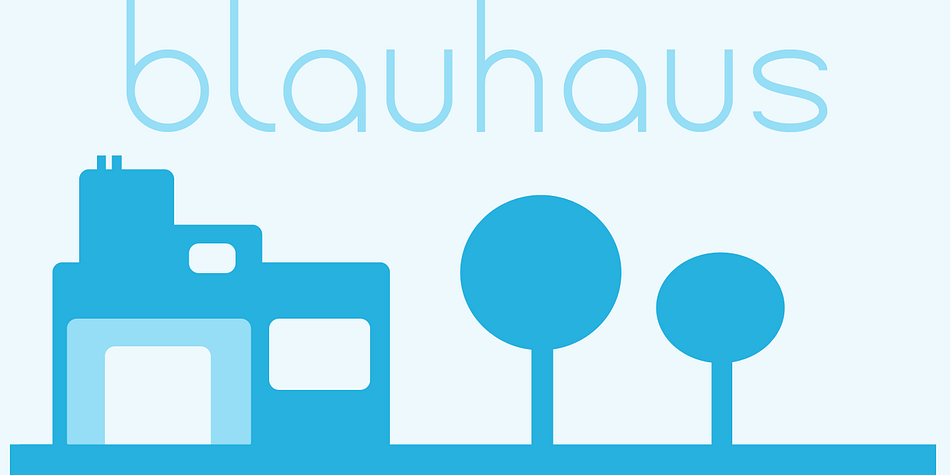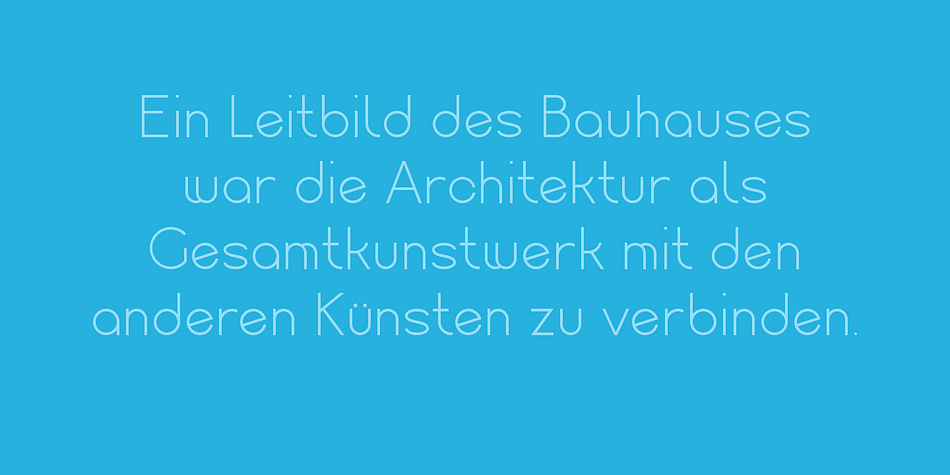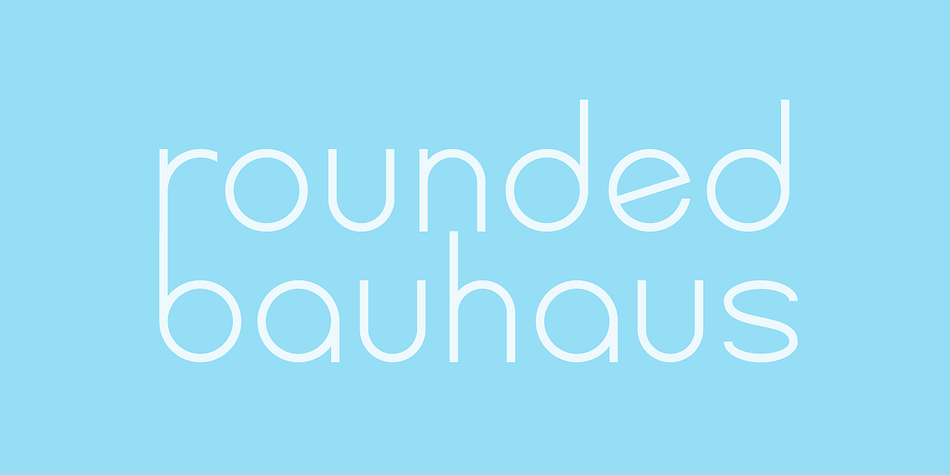
Blauhaus is a sans serif font family. This typeface has two styles and was published by Hanoded.
Yes, you’re right. Blauhaus should have been ‘Blaues Haus’, as that is the proper way of saying Blue House in German. But hey, Blauhaus sounds much better and in writing, it is quite similar to Bauhaus.
Blauhaus is a stylish, rounded sans serif font, modeled after some early 20th century German typefaces. It is easy on the eye and it will certainly give your work a sophisticated punch. It comes with a classy collection of diacritics.